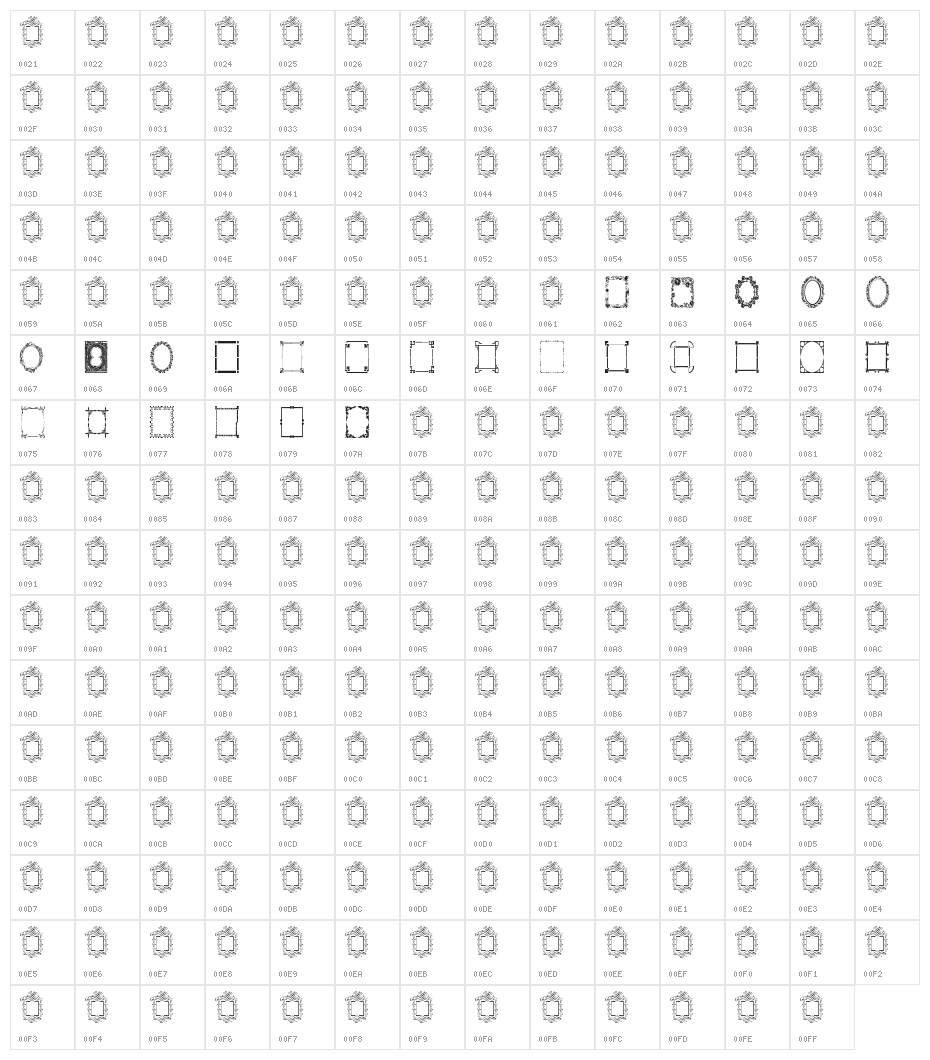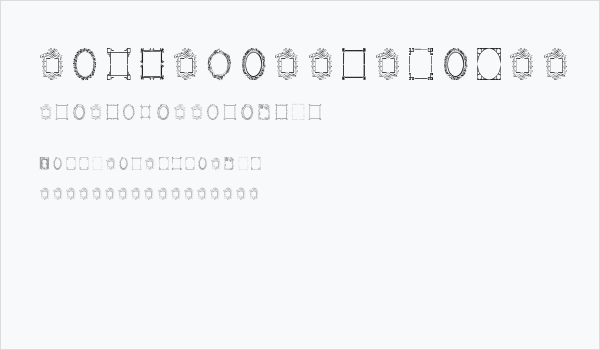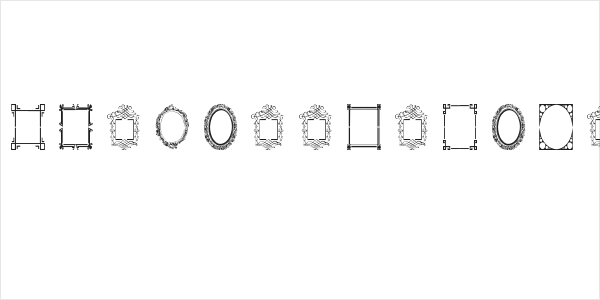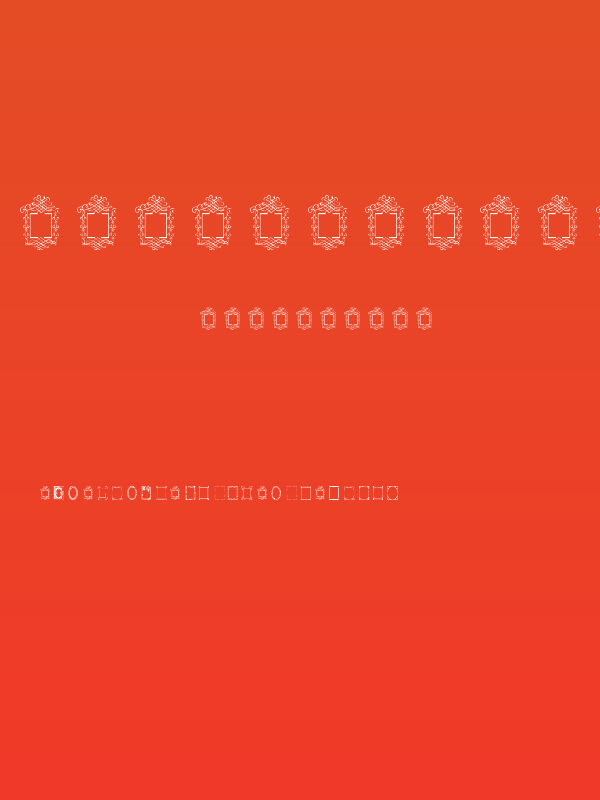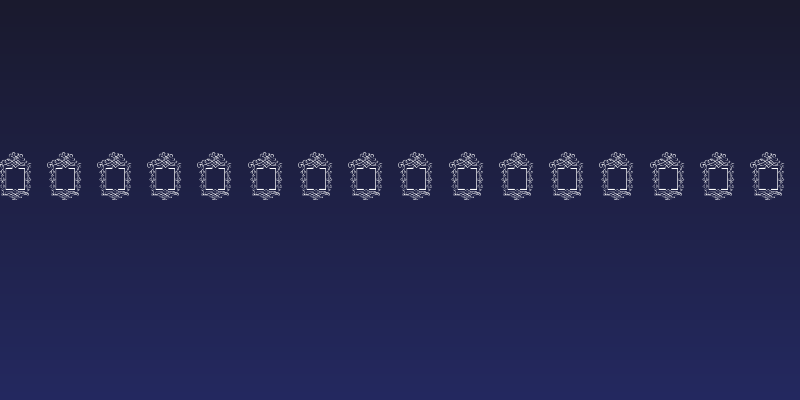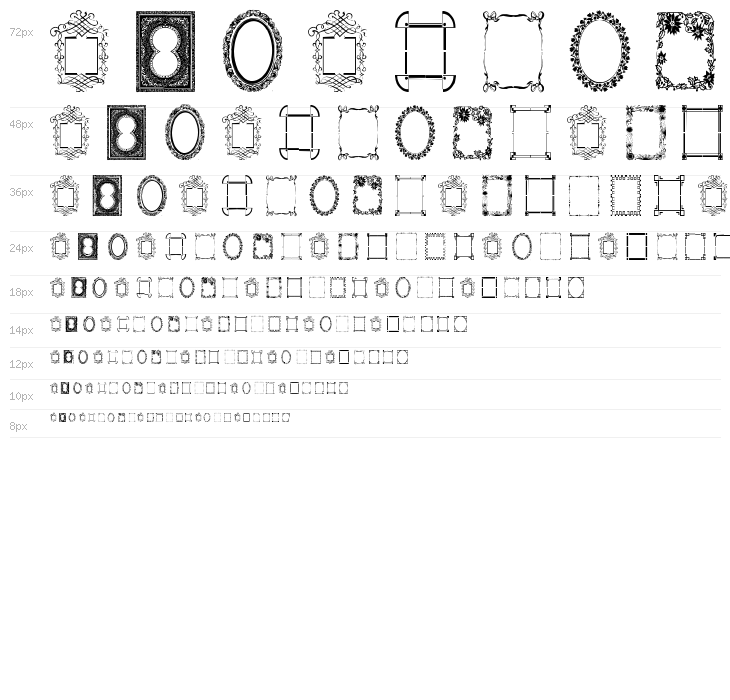
Vintage Frames 6 Font
Vintage Frames 6 Description
A decorative collection of ornate vintage-style frames, each with intricate flourishes and embellishments, presented in a variety of shapes including rectangles, ovals, and squares. The designs are highly detailed, evoking a classic and elegant aesthetic suitable for ornamental purposes.
| Overall Style | Vintage, Decorative |
| Use Case | Decorative elements, Borders, Frames for text or images |
| Proposed Projects | Wedding invitations, certificates, greeting cards, scrapbooking, branding, decorative labels, and packaging. |